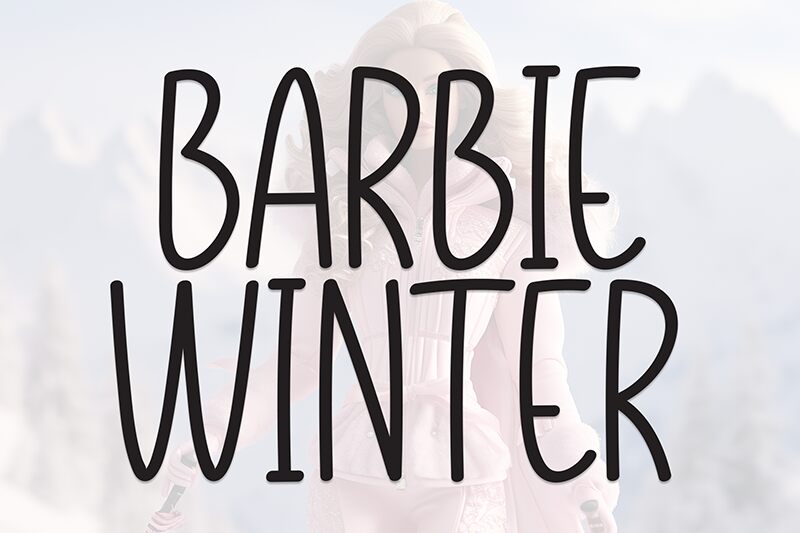
Barbie Winter font by Andi Moz is a free script typeface with a modern and informal handwritten style. The font letters are approachable, which gives it a friendly character that suits book covers, clothing items, or advertisements. Put it to good use regardless of the type of text you’re trying to write; whether it’s a headline or body text. This cool resource is free for personal use as mentioned by the author of this typeface.
Fashion ads, branding applications, and packaging for youth items are all examples of applications that can benefit from this font. Anyone from graphic designers to amateur designers can download and use it in their projects. The provided file below is a TTF font that is compatible with almost all design software and even word processors.
This sweet and friendly handwritten display font is cute and fun, making it ideal for wedding invitations, greeting cards, or any design project that requires a playful touch.